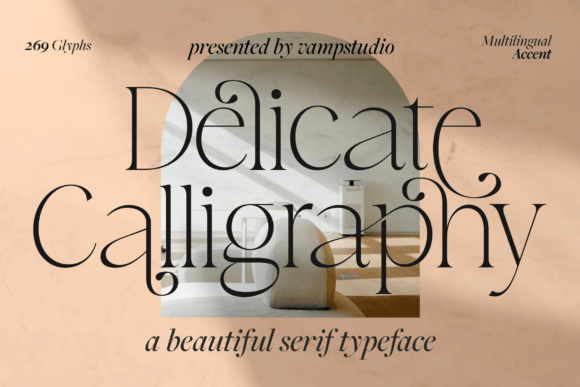
Delicate Calligraphy Font: Elevate Your Designs with Elegance and Sophistication
In the world of typography, few fonts manage to convey the essence of elegance and sophistication as effectively as Delicate Calligraphy. This stylish and elegant serif typeface has been meticulously designed to bring a touch of luxury and modern taste to any project. Whether you’re working on branding, logos, wedding designs, social media posts, advertisements, product packaging, or any other creative endeavor, Delicate Calligraphy is the perfect fit.
The Characteristics of Delicate Calligraphy
At first glance, Delicate Calligraphy may seem simple, but it’s precisely this simplicity that makes it so versatile and powerful. The font boasts clean lines, elegant curves, and a sophisticated aesthetic that instantly elevates any design. The attention to detail in this font is evident, showcasing the skillful hands of its designers.
Applications of Delicate Calligraphy
The applications of Delicate Calligraphy are vast and varied. Here are some of the areas where this font truly shines:
- Branding Projects: Establish your brand’s identity with a touch of elegance. Delicate Calligraphy can help you create a lasting impression on your audience.
- Logos: A well-designed logo is crucial for any business. This font can help you craft a logo that exudes sophistication and luxury.
- Wedding Designs: Make your wedding stationery, invitations, and decor truly unforgettable with the romantic and elegant feel of Delicate Calligraphy.
- Social Media Posts: Stand out on social media with eye-catching posts that showcase your brand’s personality and style.
- Advertisements: Capture your audience’s attention with elegant and sophisticated ad copy that reflects your brand’s values.
- Product Packaging: Elevate your product’s packaging with a design that conveys luxury and quality.
- Product Designs: From fashion to home goods, Delicate Calligraphy can add a touch of sophistication to your product designs.
- Labels and Photography: Add a professional touch to your labels and photography with this elegant font.
- Watermark and Invitation: Protect your work and make your invitations stand out with Delicate Calligraphy.
- Stationery: Create a cohesive brand image with elegant stationery that features this beautiful font.
The Benefits of PUA Encoding
Delicate Calligraphy is PUA (Private Use Area) encoded, which means that accessing the font’s amazing glyphs and ligatures is incredibly easy. This feature allows designers to:
- Easily access swashes and ligatures: Add a personal touch to your designs with the font’s beautiful swashes and ligatures.
Why Choose Delicate Calligraphy?
With so many fonts available, why choose Delicate Calligraphy? Here are just a few reasons:
- Unique and Versatile: This font is perfect for a wide range of projects, from branding to wedding designs.
- Elegant and Sophisticated: Delicate Calligraphy brings a touch of luxury to any design.
Delicate Calligraphy is more than just a font – it’s a design solution that can elevate any project to new heights of elegance and sophistication. With its clean lines, elegant curves, and PUA encoding, this font is perfect for designers, artists, and brands looking to make a lasting impression. Whether you’re working on a branding project, wedding design, or social media post, Delicate Calligraphy is the perfect choice.